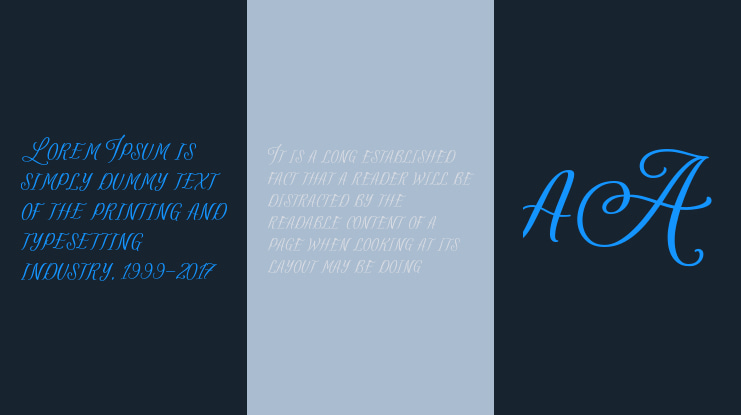
Revisella Font
Revisella Typeface is a beautiful and classy display font. What makes this font look unique is because this font has all caps and alternates with swashes. It has many swashes that allows you to create beautiful lettering instantly.